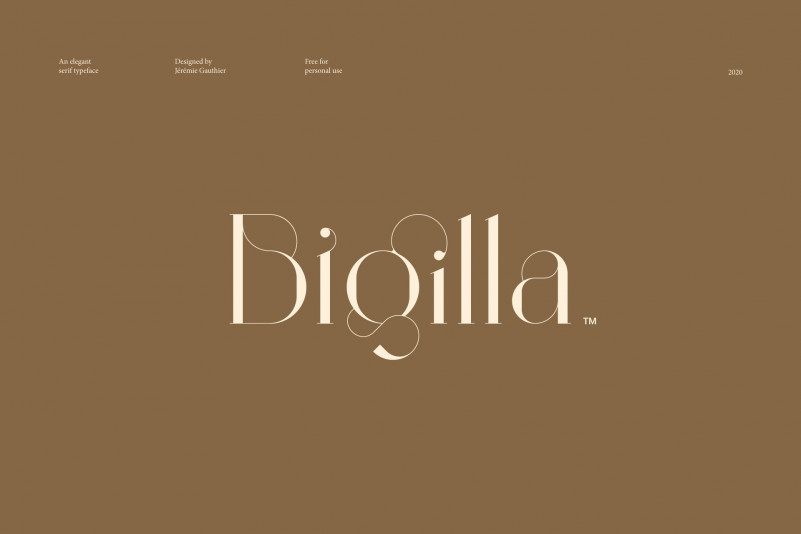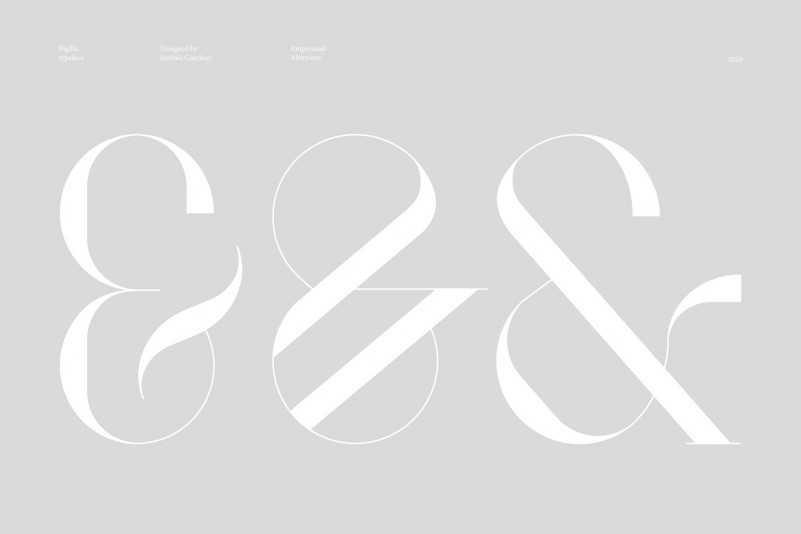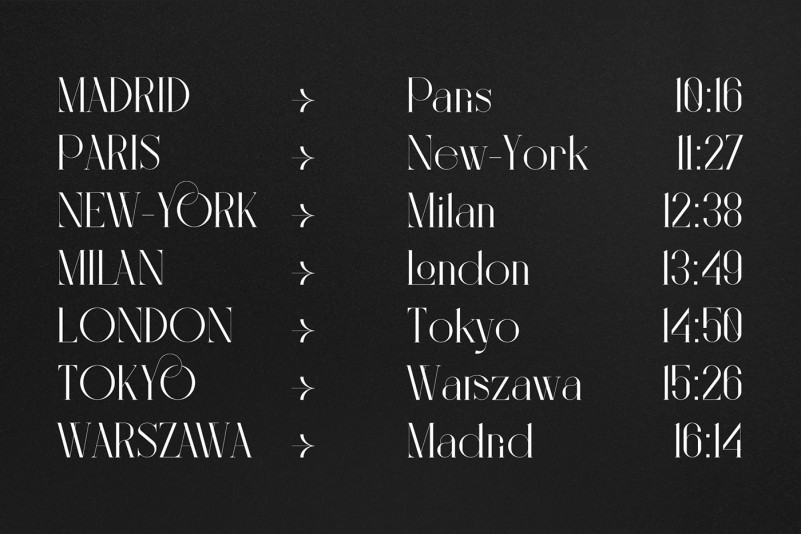
Bigilla™ Display Font
A new display font typeface. This is a high contrast display font, featuring uppercase characters, numbers, and assorted symbols. Introducing Bigilla Font. It’s a display serif typeface with 2 font weights (Regular-Bold) that include many ligatures and alternates. This typeface is multilingual and perfect for : Branding, posters, Magazines, packaging designs and so much more.